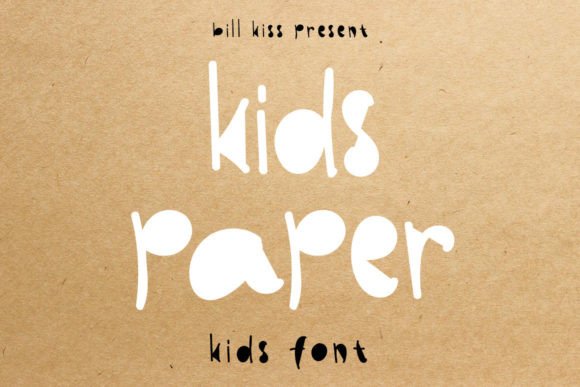
Welcome to the world of Kids Paper Font, the magnificent display font family that exudes charm and innocence. Its exquisite letterforms dance across the screen, resembling the playful scribbles of a child, yet maintaining an air of sophistication. Each character is meticulously crafted to capture the essence of childhood, evoking memories of laughter, imagination, and limitless possibilities.
With Kids Paper Font, you'll embark on a creative journey where your designs flourish with a touch of whimsy and delight. Whether you're crafting invitations, greeting cards, posters, or website headers, this font will transform your words into captivating works of art. Its versatility knows no bounds, lending itself effortlessly to both formal and informal projects.
Imagine your designs adorned with the enchanting curves and playful strokes of Kids Paper Font. Its clean lines and elegant appearance will add a touch of magic to your creations, capturing the attention of your audience and leaving a lasting impression.